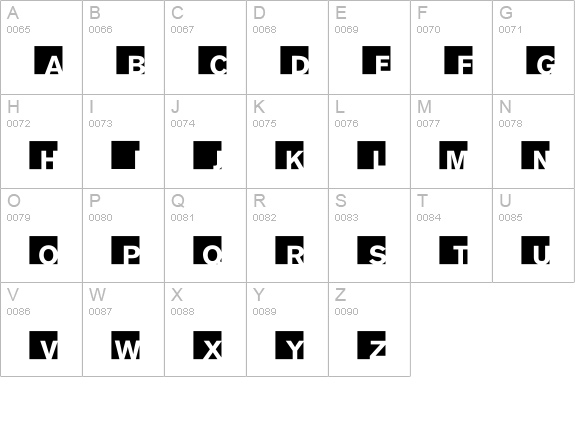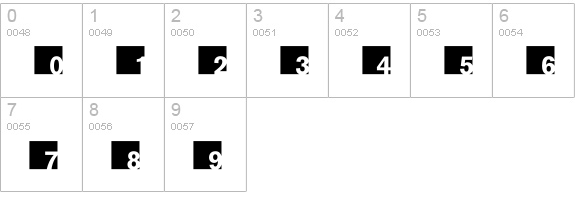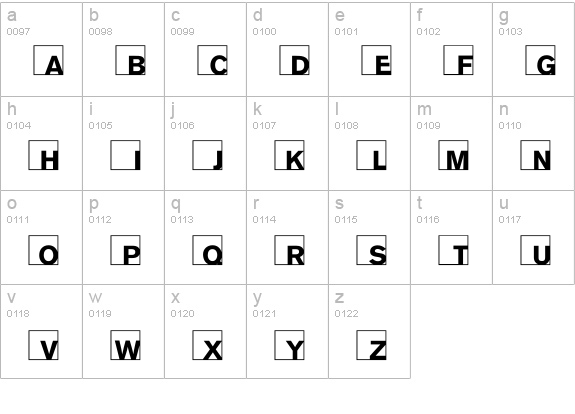
ABCLogosXYZ-Bold Font Details
ABCLogosXYZ-Bold is a strong, high-contrast variant in the ABCLogosXYZ typeface family \xE2\x80\x94 well suited to headlines, attention-grabbing titles, and strong calls-to-action.
ABCLogosXYZ-Bold is a modern and stylish font that exudes confidence and professionalism. With its bold and striking appearance, this font is perfect for creating eye-catching logos, headers, and titles. The sleek letterforms and sharp angles give ABCLogosXYZ-Bold a contemporary edge, making it a versatile choice for a wide range of design projects. The best part is that ABCLogosXYZ-Bold is available for free download at FontsMarket.com. This means you can easily access this high-quality font without any cost, making it a valuable addition to your font collection. Whether you're a designer looking to elevate your work or a business owner in need of a standout logo, ABCLogosXYZ-Bold is sure to make a lasting impression. Download it today and see the impact it can have on your designs!